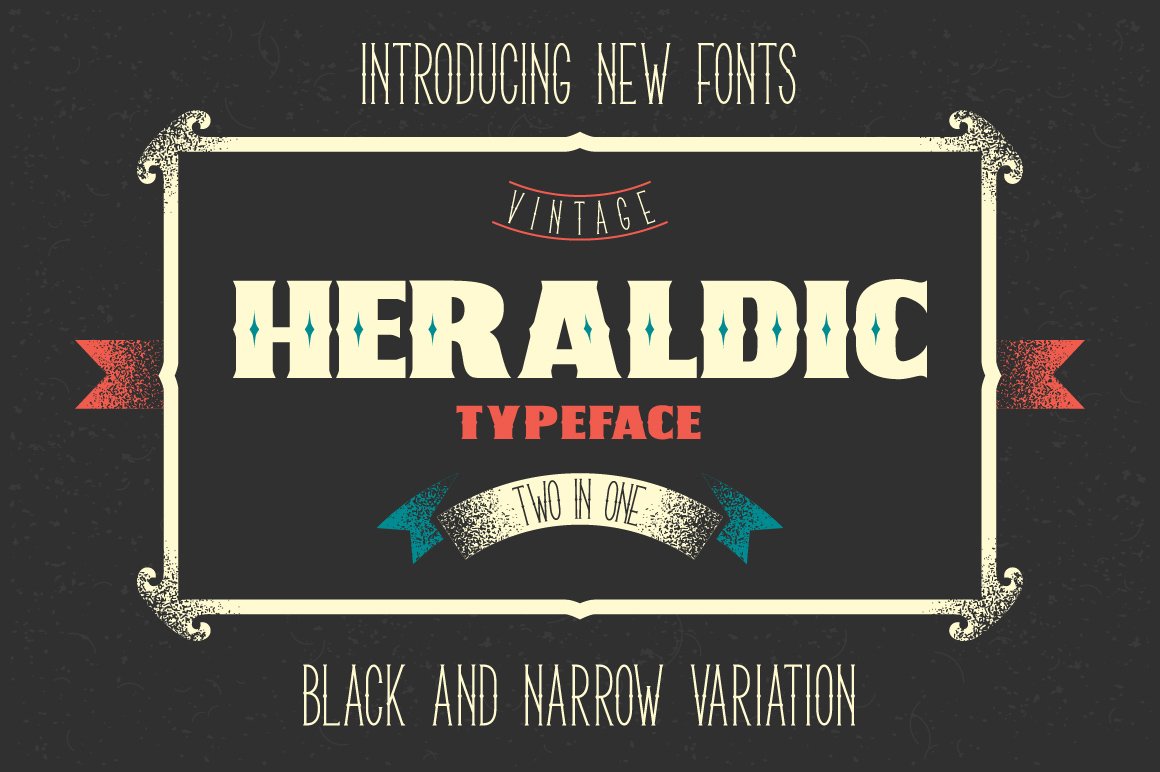
Two heraldic Font
Hello everybody! Here is a set of two vintage fonts. This both fonts are included in my another bundle with different heraldic emblems.
Features:
- Black original font (OTF, WOFF)
- Black font without holes (OTF, WOFF)
- Narrow font (OTF, WOFF)
Note: Fonts contains ONLY big latin letters (no small letters, digits or other glyphs). Except the narrow font, it has a digits :)